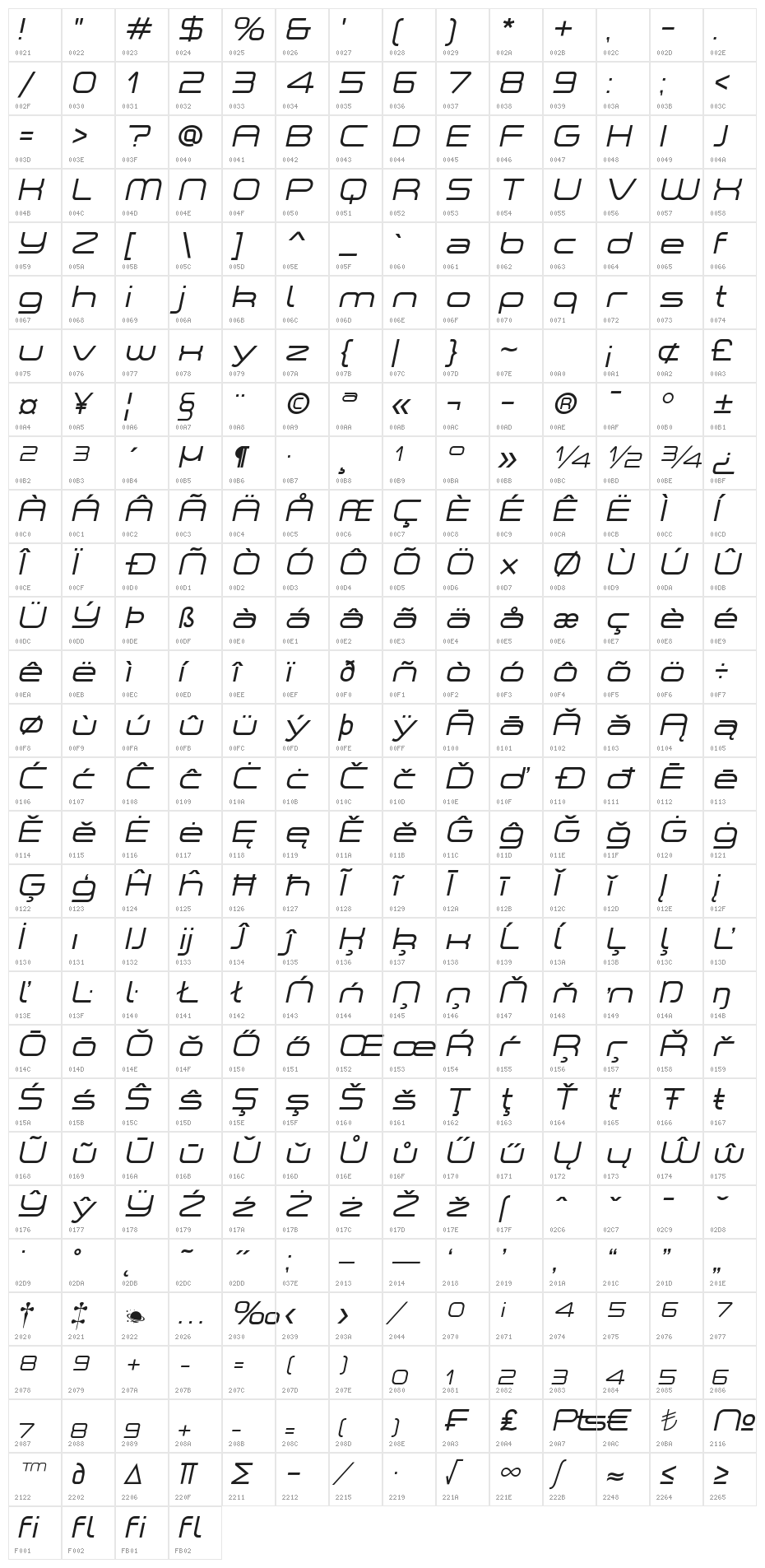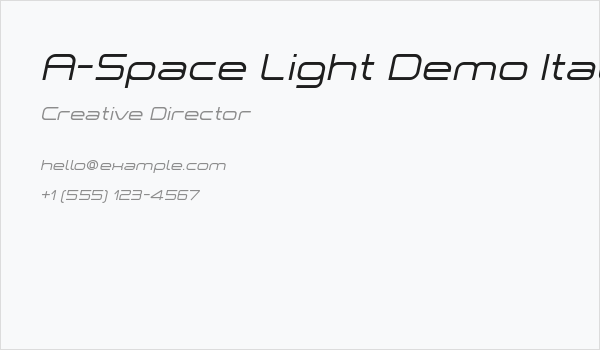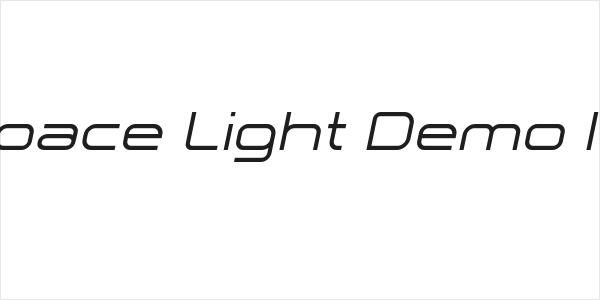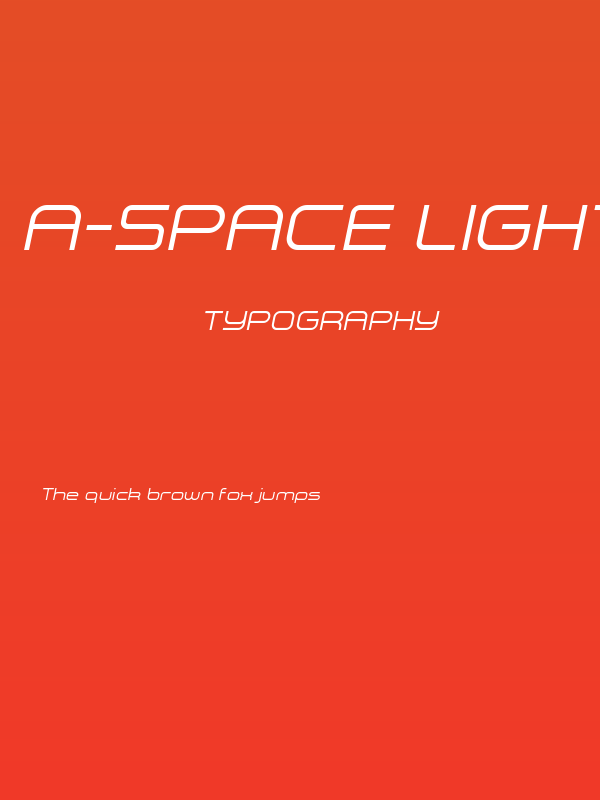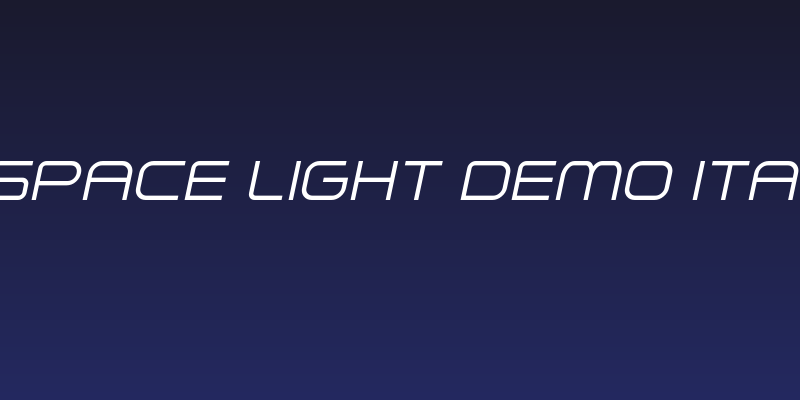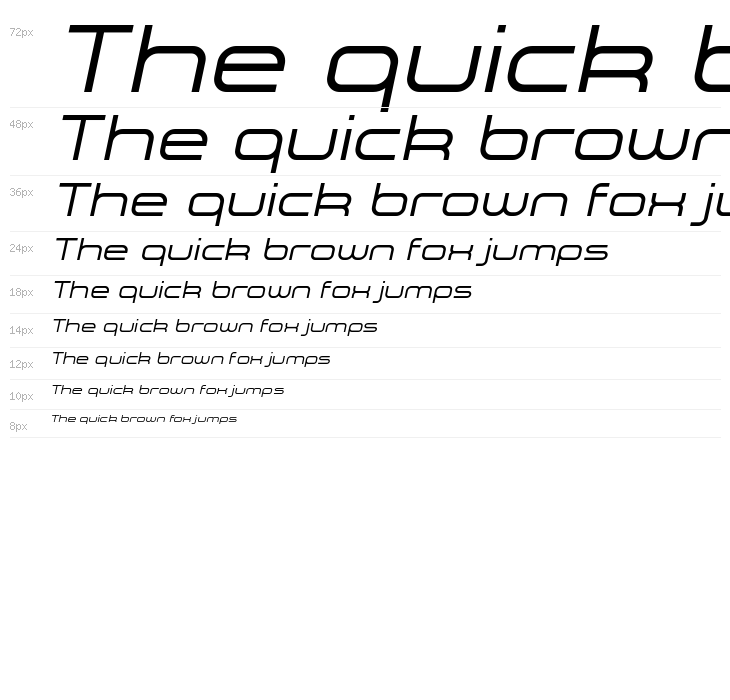
A-Space Light Demo Italic Font
A-Space Light Demo Italic Description
This font features a sleek, futuristic design with smooth, rounded edges and a slight italic slant. The characters are evenly spaced, providing a clean and modern appearance. The uppercase letters are uniform in height, while the lowercase letters maintain a consistent baseline, enhancing readability. The numerals are distinct and align well with the overall style, making them suitable for digital interfaces. Special characters are crafted with precision, maintaining the font's cohesive aesthetic. This font's light weight and airy design make it ideal for projects that require a contemporary and sophisticated look.
| Use Case | Headlines, Logos, Digital interfaces |
| Proposed Projects | Ideal for tech branding, digital interfaces, modern advertising, and futuristic design projects. |